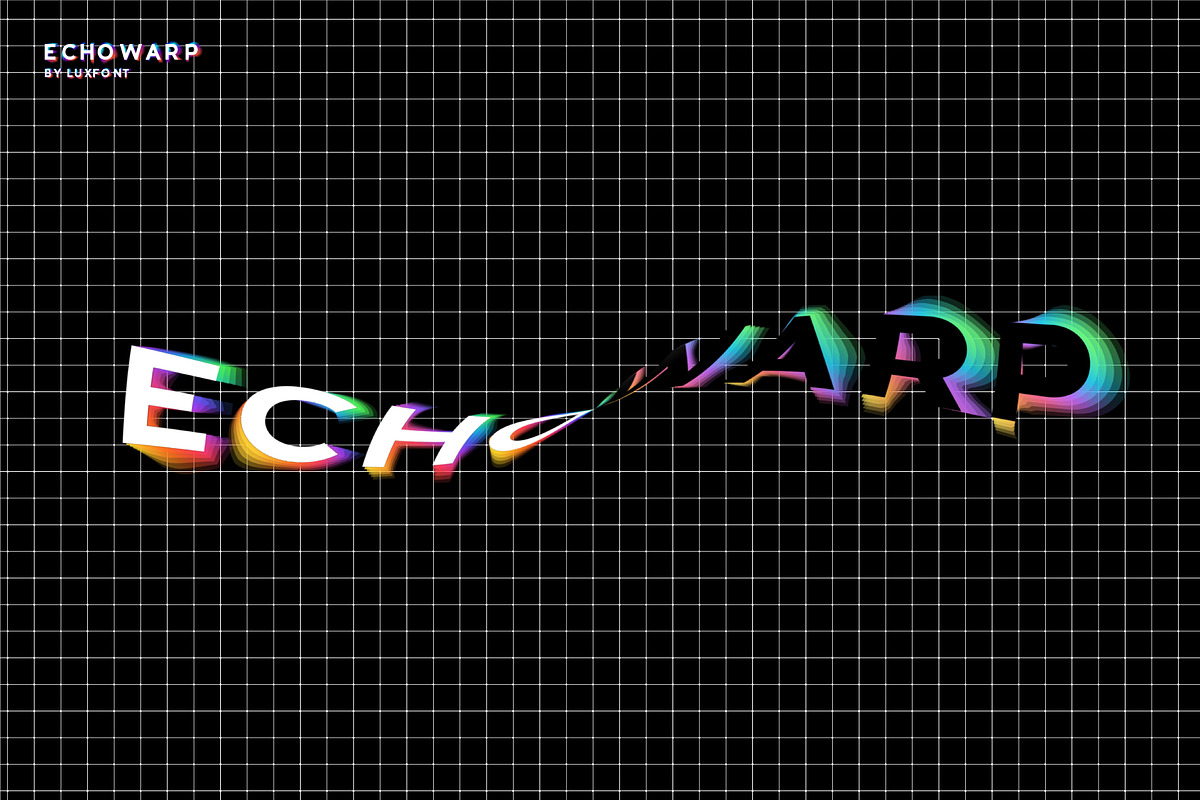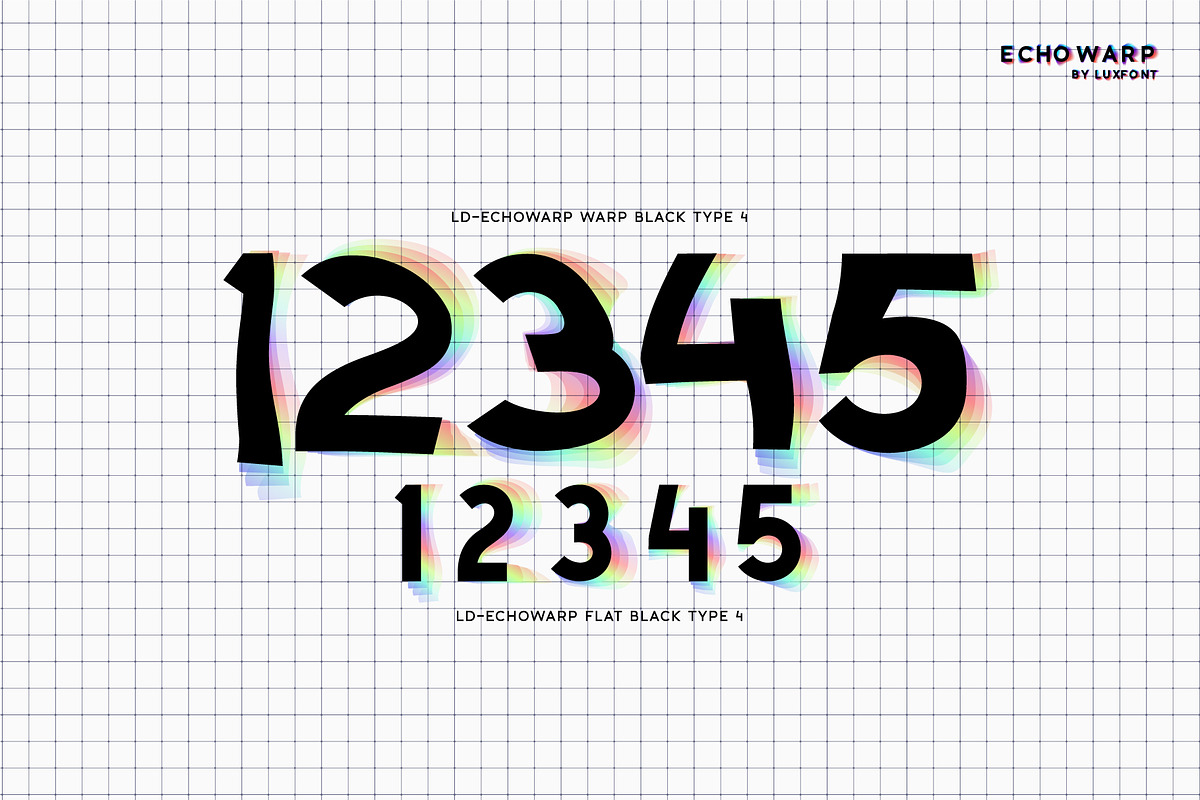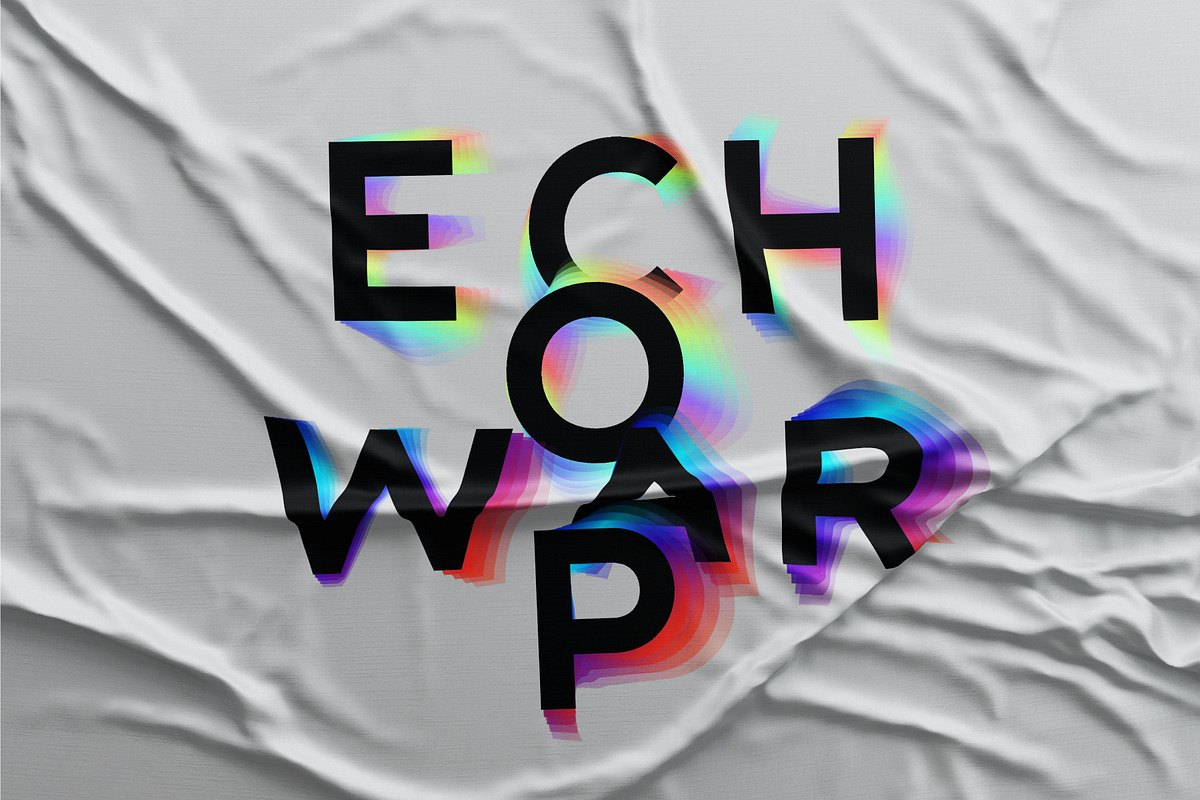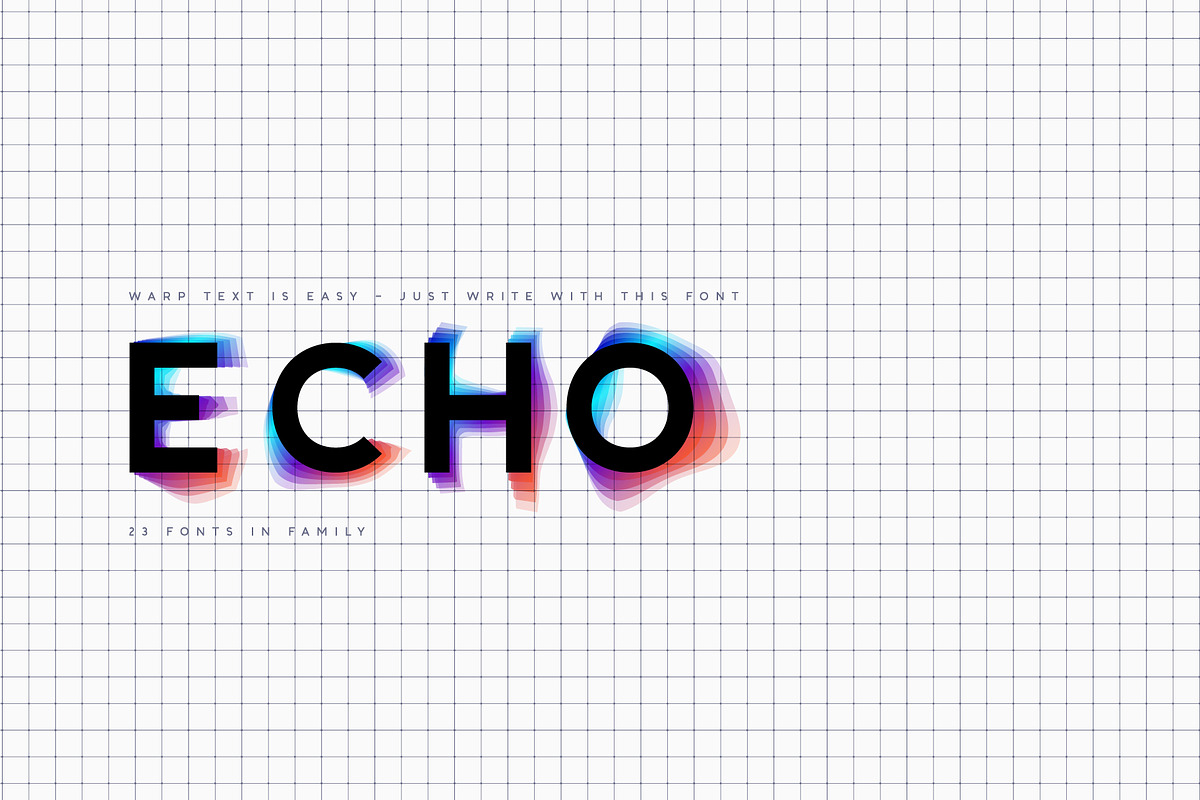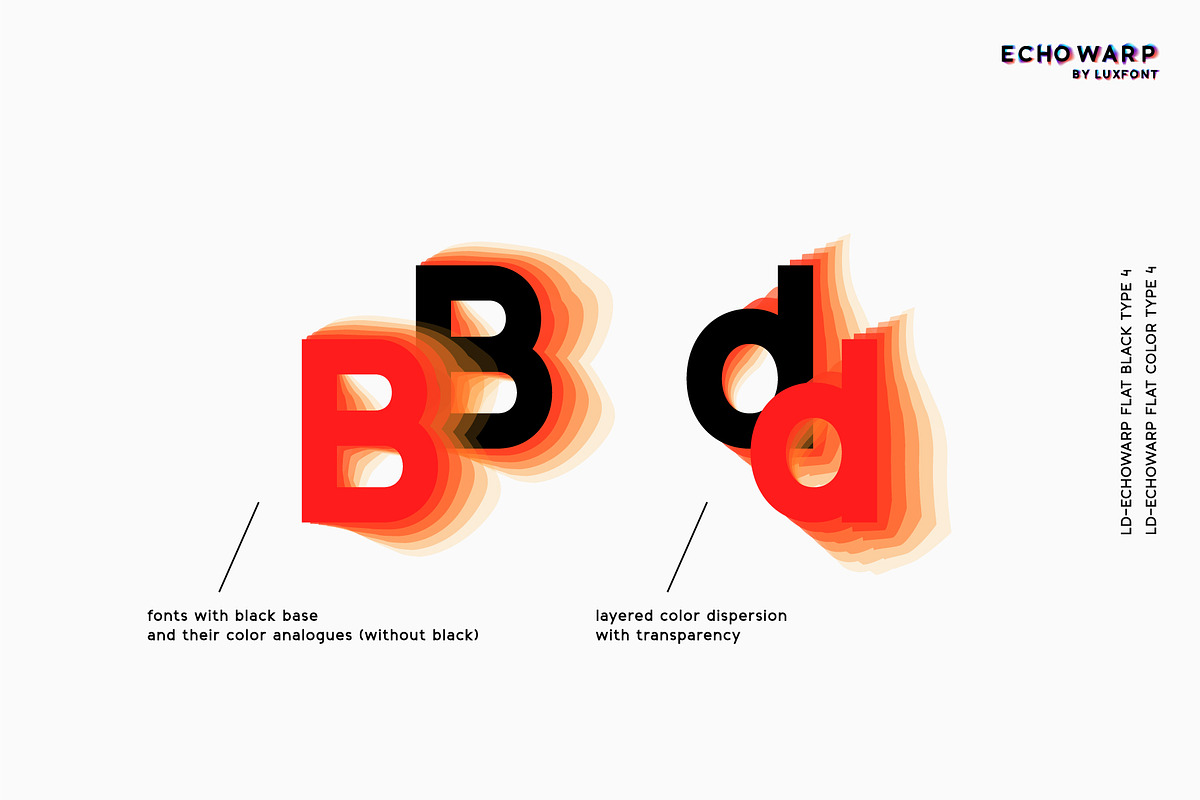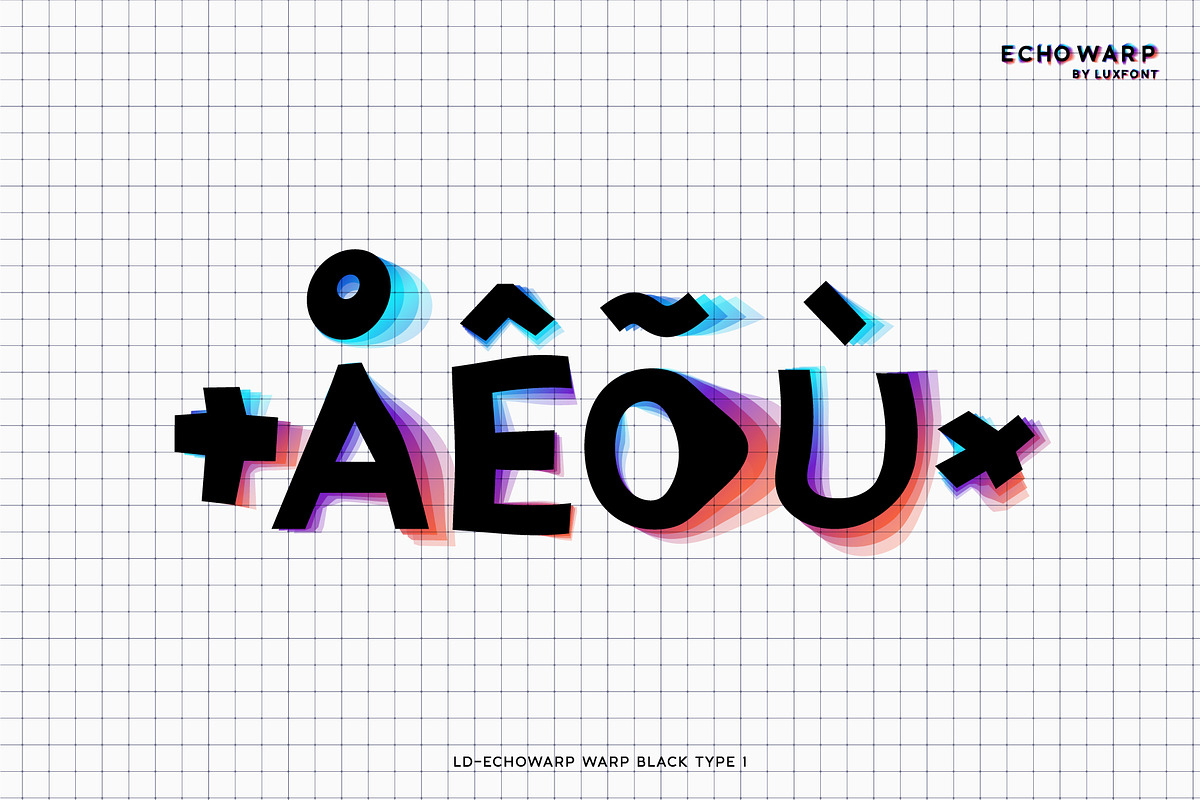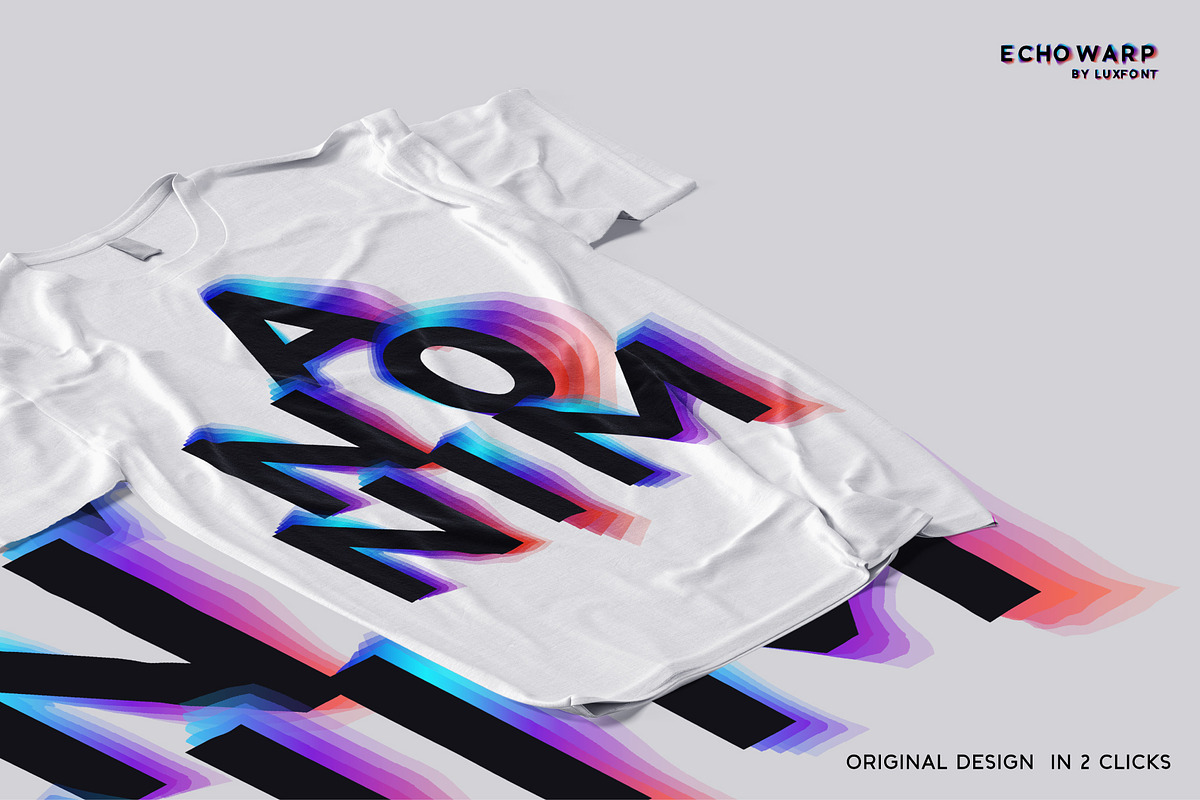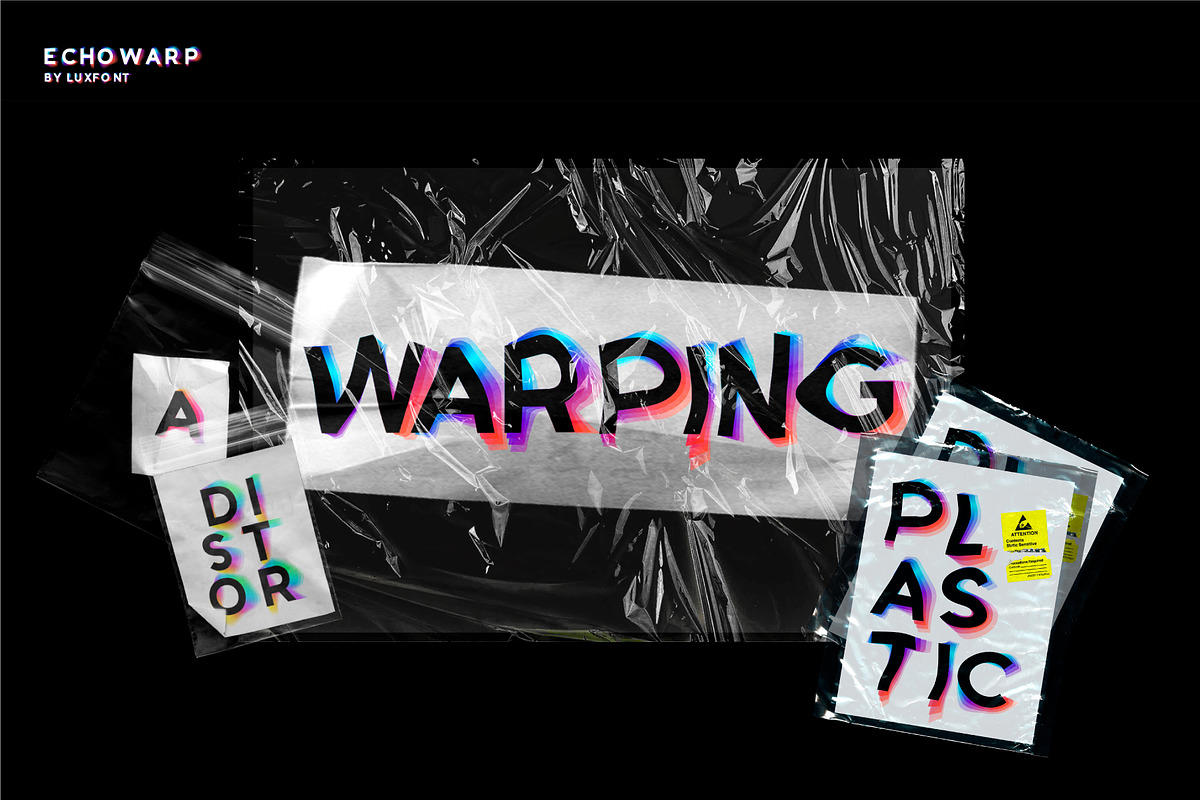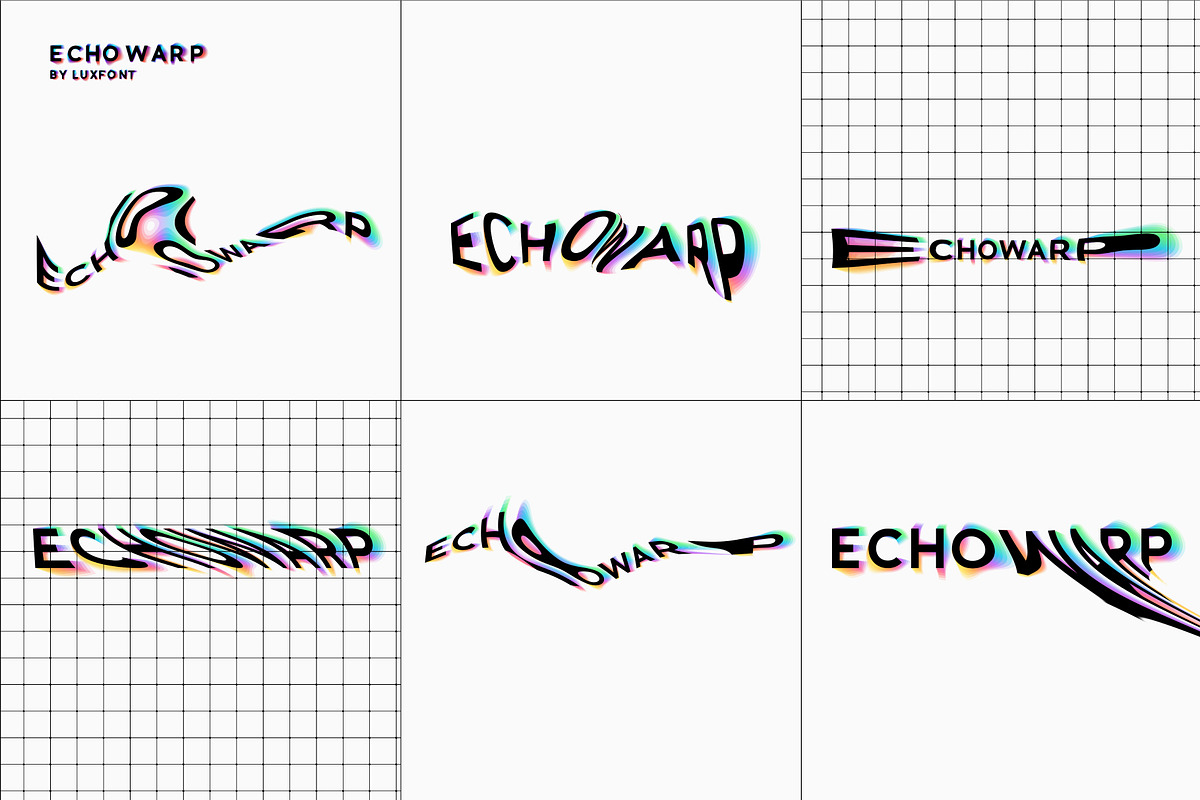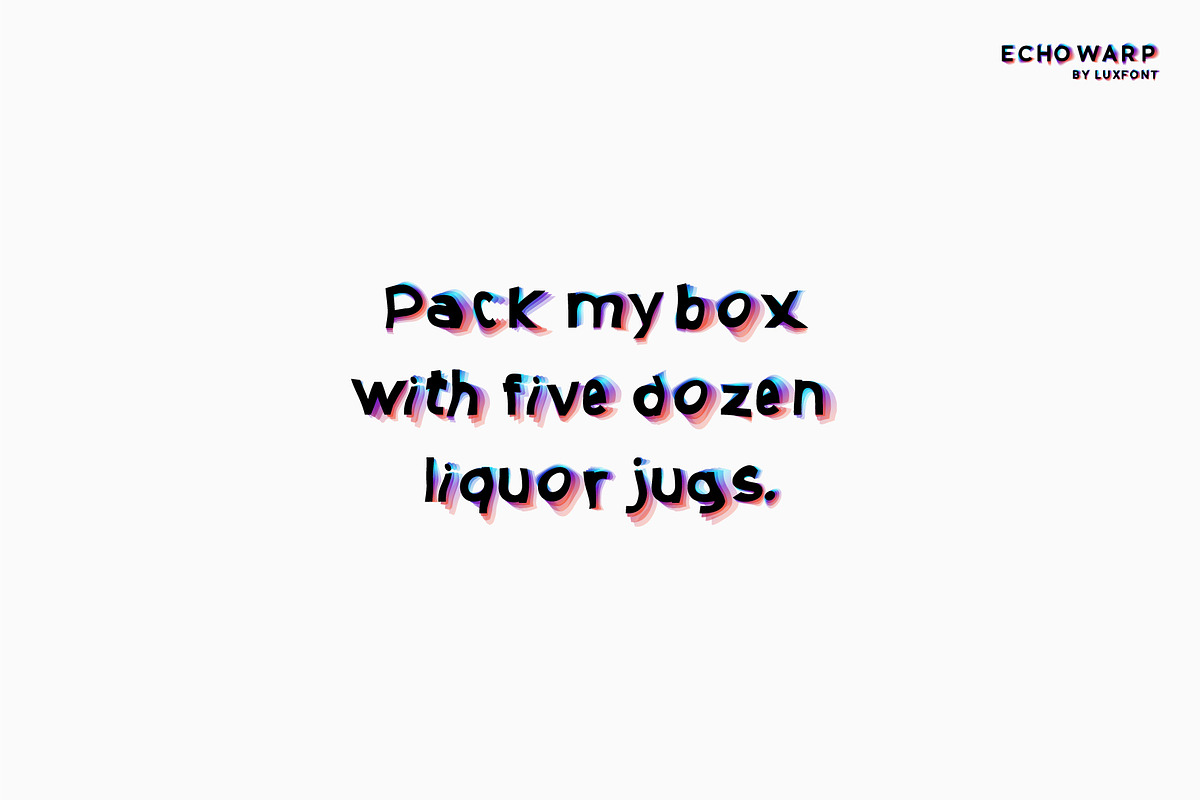
Echowarp. OTF-SVG family.
Introducing Echowarp is an unusual COLORED font family. The main idea of this font is that a colored echo spreads and fades from minimalistic letters to the sides. Distorted letters give the effect of temporary refraction. The originality of this family is primarily suitable for a bold design. And if you add a random distortion in a graphics program to the finished heading written in this font, the inscription will turn into an absolutely unique and inimitable one. The futuristic set has 23 fonts in the family! Do not limit your imagination, because the font opens up a huge space for creative experiments.
- Letters with color echo & distortion
- 23 OTF SVG color fonts in the family
- Gradient and hologram fonts
- Kerning